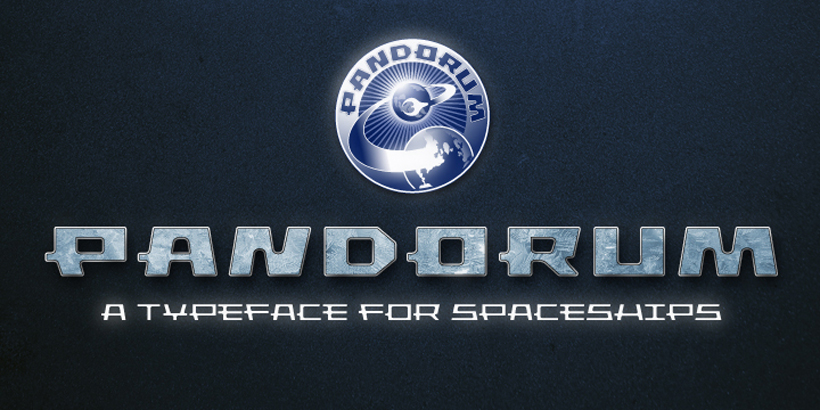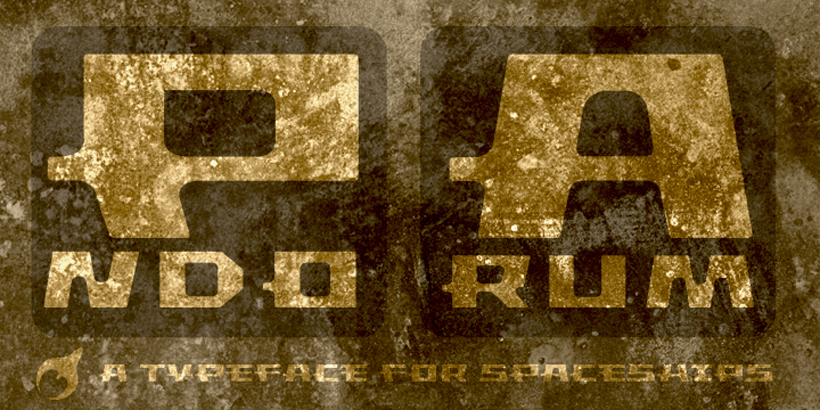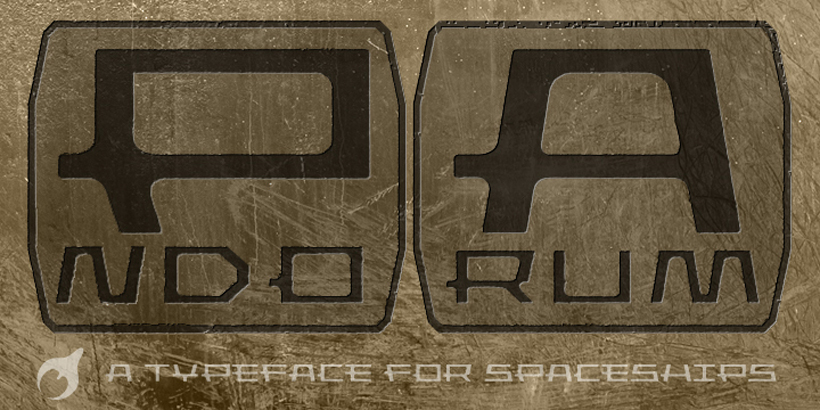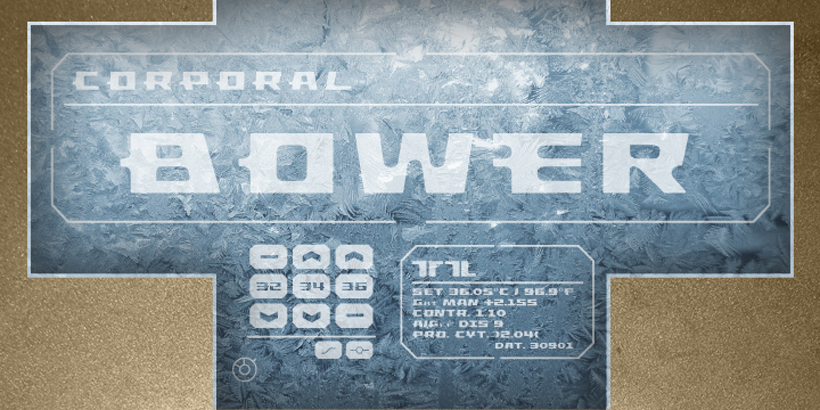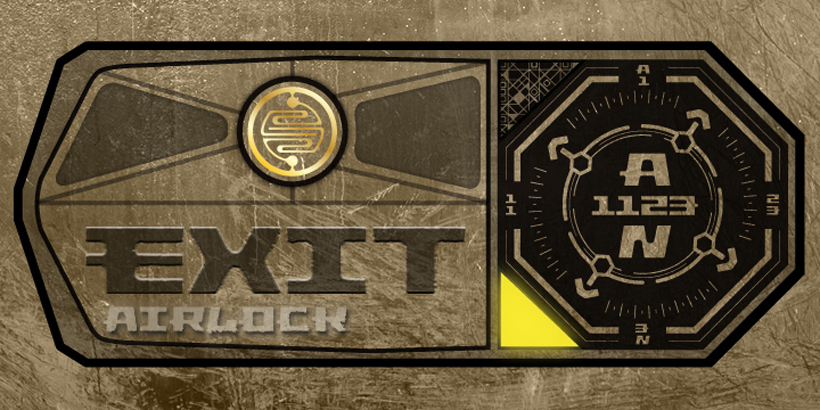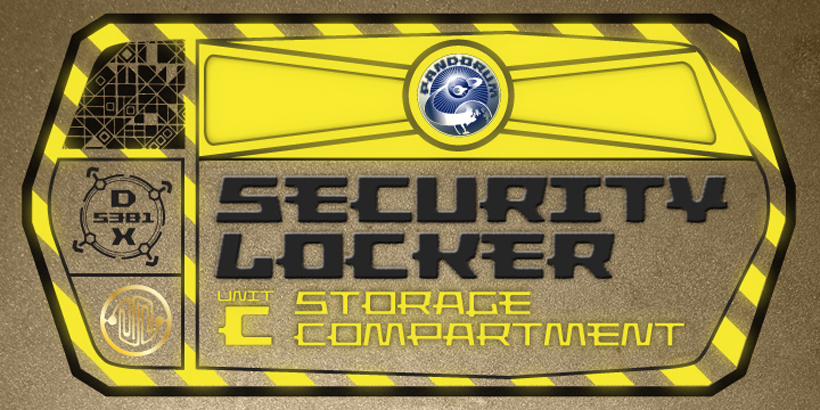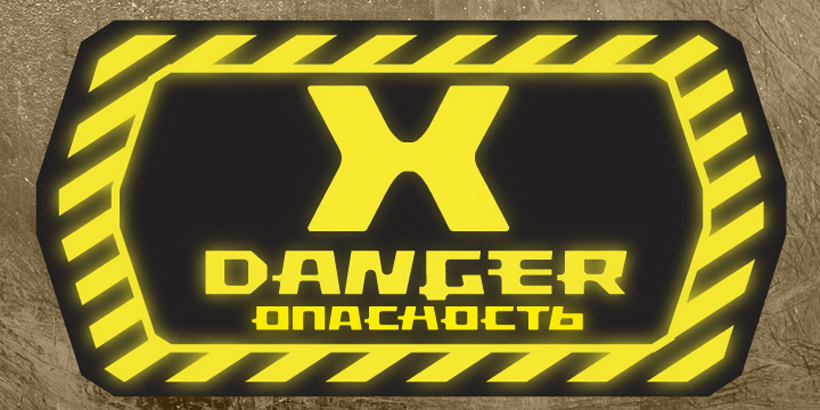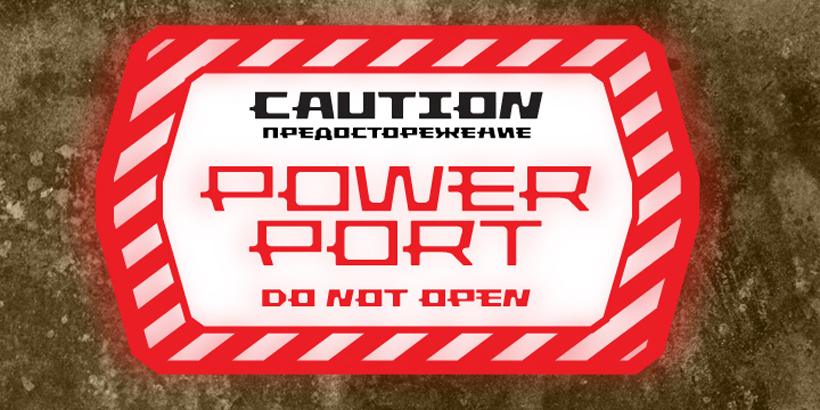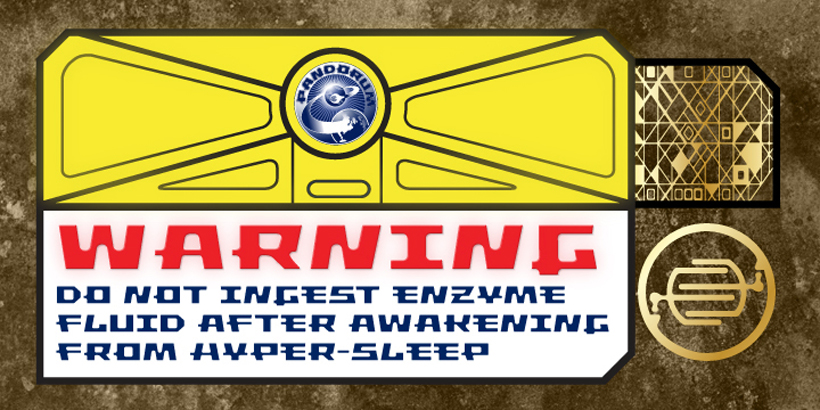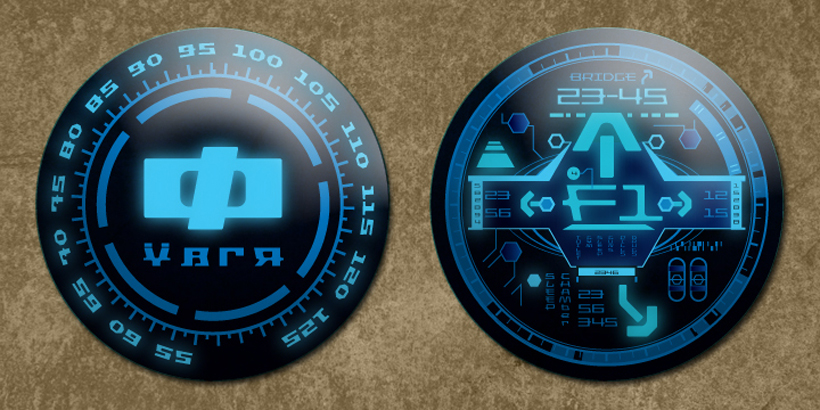
The Pandorum font was especially designed by Alejandro Lecuna and Henning Brehm for film sets in the science fiction movie “Pandorum” starring Ben Foster, Antje Traue and Denis Quaid. It was used for all signage, logos, posters and monitors in the spaceship “Elysium”.